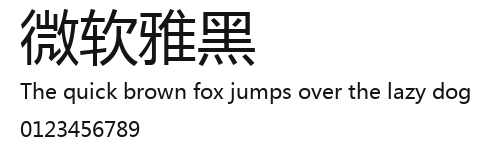
• Font Name: 微软雅黑
• Font ID: 微软雅黑 Regular
• Full Font Name: 微软雅黑
• Designer: 北大方正电子有限公司
• Manufacturer: Microsoft Corporation
About 微软雅黑.ttf
微软雅黑.ttf is a modern, elegant sans-serif font designed for ultimate readability and visual harmony. Perfect for branding, headlines, web design, and print materials.